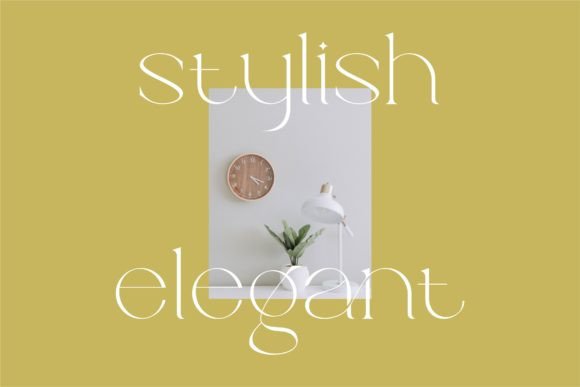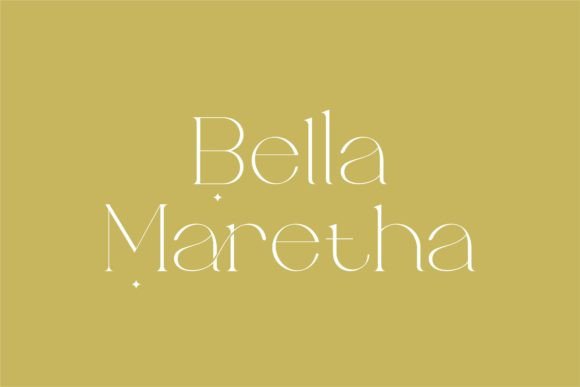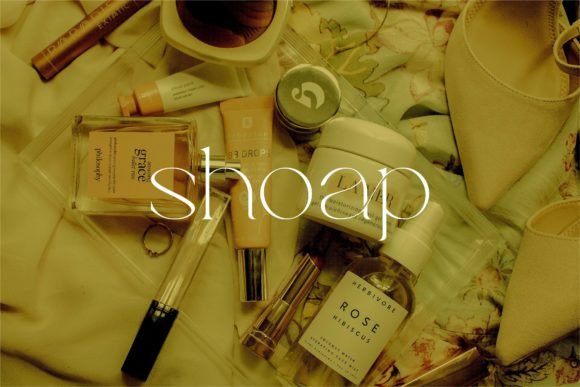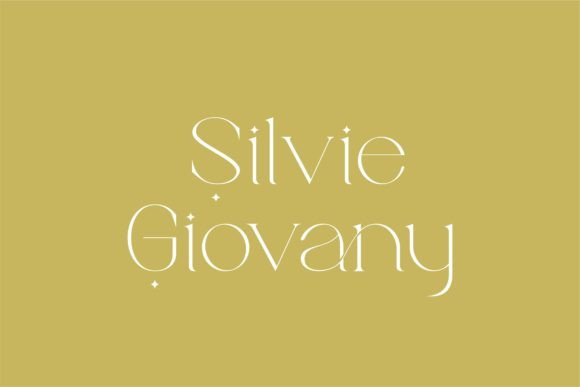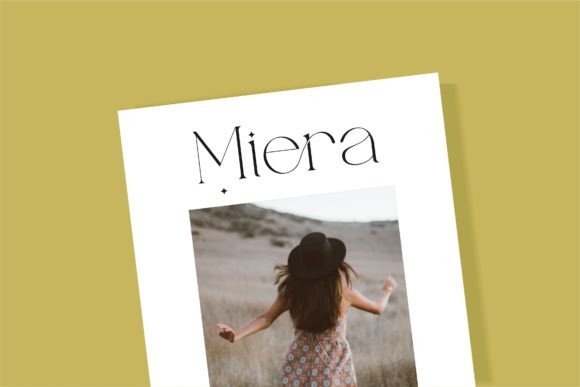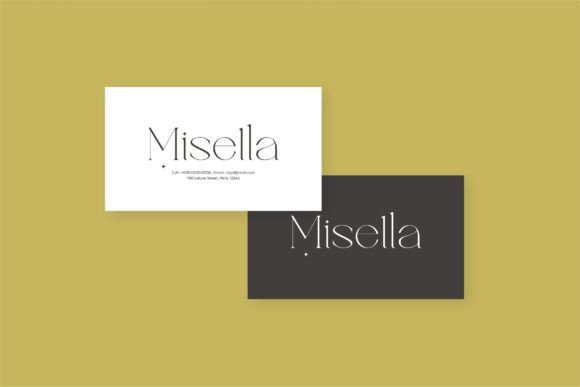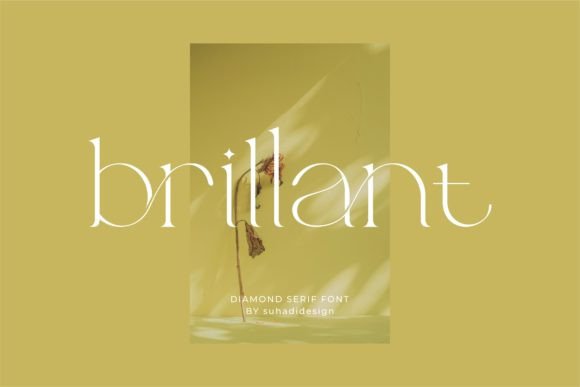
The Brillant Font: Elevate Your Designs with Elegance and Style
I’ll never forget the time I was working on a luxury brand magazine, pouring over design concepts, and struggling to find the perfect font. My client wanted something that exuded sophistication, glamour, and a touch of modernity. That’s when I stumbled upon the Brillant font. It was love at first sight! ✨ With its stylish and modern serif design, it instantly elevated my project and exceeded my client’s expectations.
An Honest Review of Brillant Font
- ✨ Elegant and classy design: Brillant font boasts a sophisticated, high-end feel that’s perfect for luxury brands and designs.
- ✅ Versatility: This font is incredibly versatile, making it suitable for a wide range of projects, from magazines and books to business cards and social media graphics.
- 💡 Modern style: Brillant font seamlessly blends traditional serif elements with a modern twist, making it perfect for designers looking for a fresh take on classic typography.
While Brillant font is an excellent choice for many projects, there are a few minor quirks to be aware of:
- 🤔 Limited use of OpenType features: While Brillant font does offer some OpenType features, it’s not as extensive as some other fonts on the market.
- ⚠️ Not ideal for body text: Due to its elegant, yet refined design, Brillant font is best suited for headlines, titles, and short paragraphs, rather than lengthy body text.
The Designer Inspiration Behind Brillant Font
Brillant font was designed with the modern designer in mind. Its creator aimed to craft a font that would seamlessly blend elegance and sophistication with a touch of modernity. The result is a font that’s perfect for luxury brands, magazines, and designs that require a high-end feel.
Q: What type of projects is Brillant font best suited for?
A: Brillant font is ideal for luxury brands, magazines, books, business cards, social media graphics, and designs that require an elegant, high-end feel.
Q: Does Brillant font support OpenType features?
A: Yes, Brillant font offers some OpenType features, including stylistic alternates and ligatures. However, the range of features may be limited compared to other fonts.
Q: Can I use Brillant font for body text?
A: While Brillant font is elegant and refined, it’s best suited for headlines, titles, and short paragraphs. For body text, consider a font with better readability and flow.